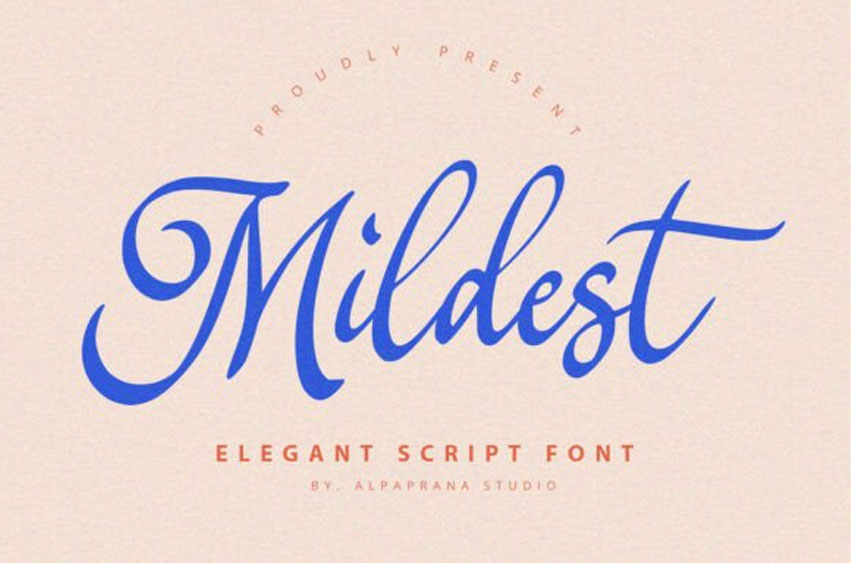
Mildest Font is an elegant script font that features beautiful, flowing curves and high contrast between thick and thin strokes, giving it a luxurious, handcrafted appearance. The generous swashes and consistent slant emphasize grace and romance.
This typeface is highly suitable for projects that require a personal, glamorous, and stylish touch. It shines in:
Bespoke wedding stationery and luxury announcements
Signature logos and personal branding
High-fashion and beauty product packaging
Social media quotes and custom merchandise
Mildest offers immediate sophistication and warmth, ensuring a memorable and distinguished design impact.